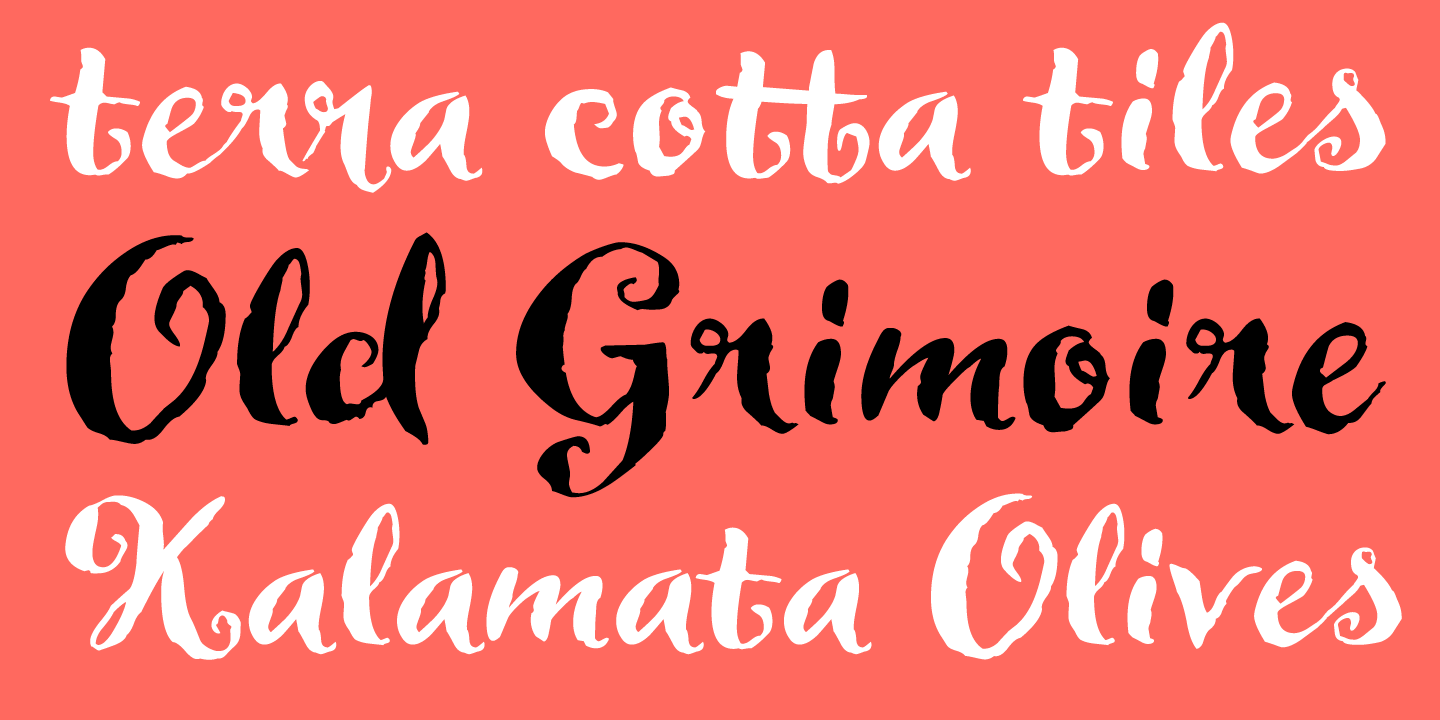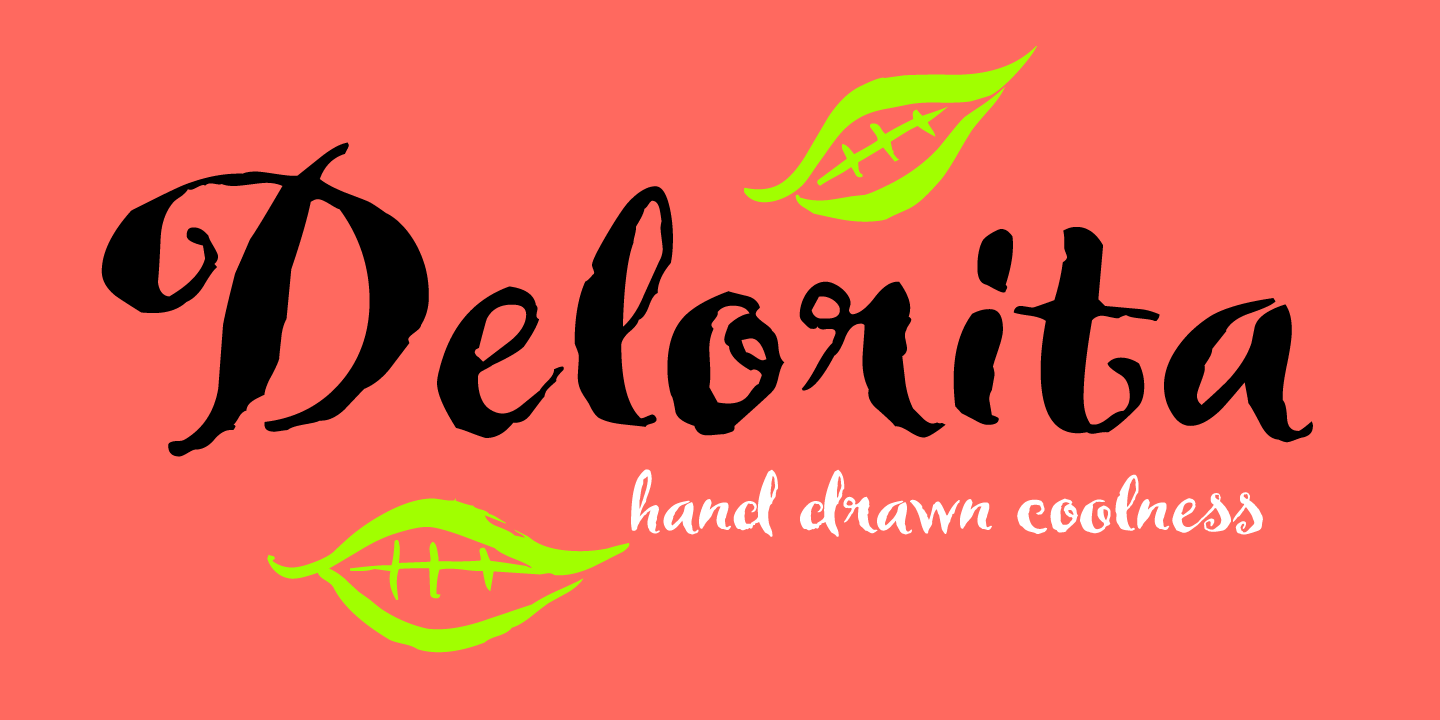
Delorita
About Delorita
Delorita BV is a beautiful and fun quill pen font. Think: Frida Kahlo, flamenco dancers, gypsy fortune tellers, dried roses and homespun chic!